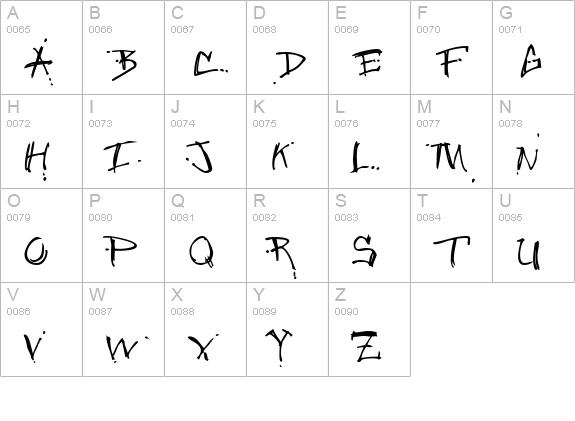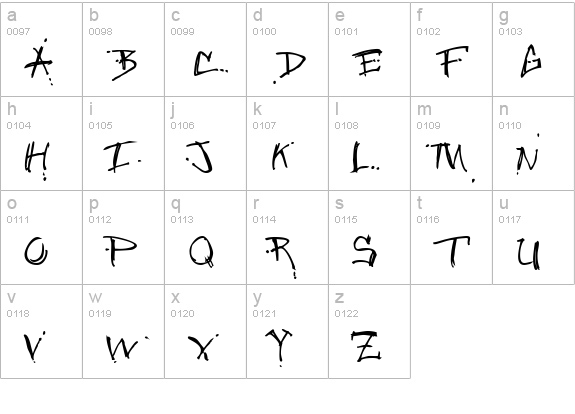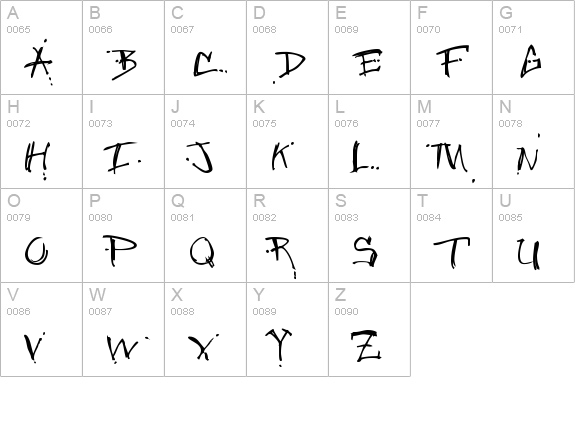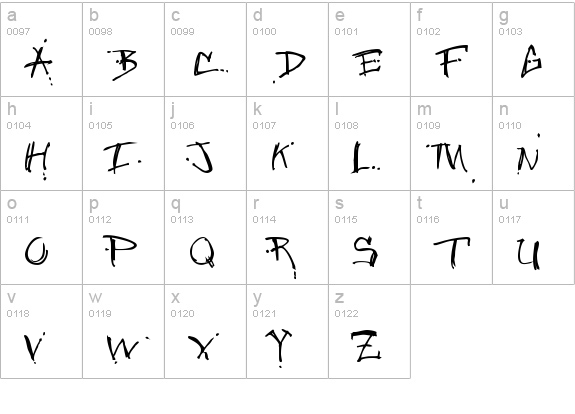
Jungle Bold is a strong, high-contrast variant in the Jungle typeface family \xE2\x80\x94 well suited to headlines, attention-grabbing titles, and strong calls-to-action.
Introducing Jungle Bold Font - a captivating and adventurous typeface that brings a sense of wildness and boldness to your design projects. With its unique and dynamic letterforms, Jungle Bold Font is perfect for creating eye-catching headlines, logos, posters, and more. This versatile font is free to download at FontsMarket.com, making it accessible to all designers looking to add a touch of untamed spirit to their work. Whether you're working on a nature-inspired project, a travel brochure, or a jungle-themed event, Jungle Bold Font is sure to make a lasting impression. Embrace the beauty and excitement of the jungle with Jungle Bold Font - download it today for free and let your creativity run wild!